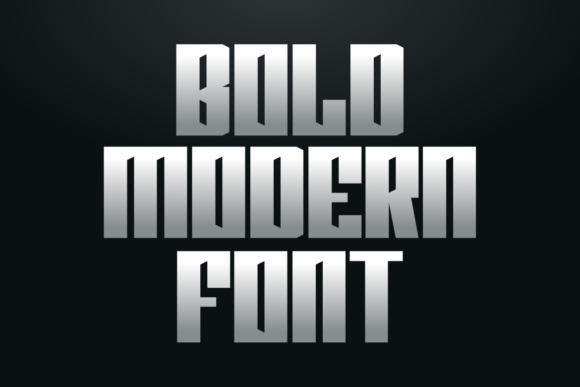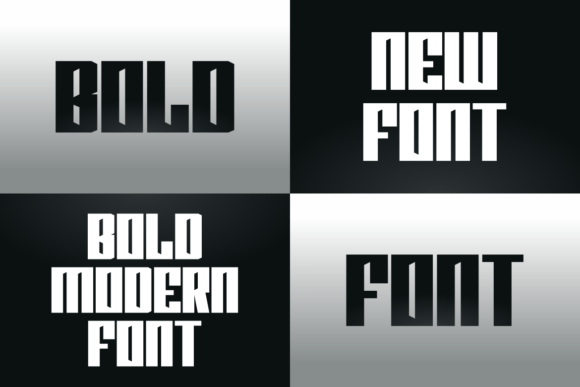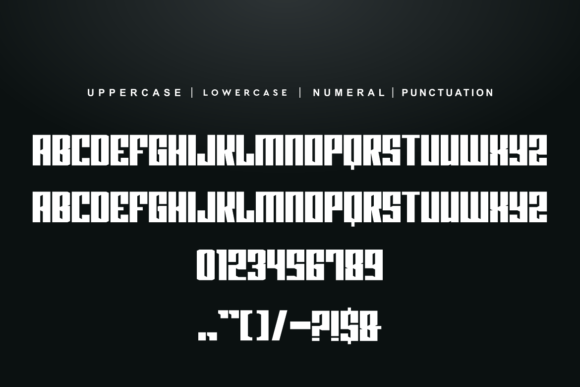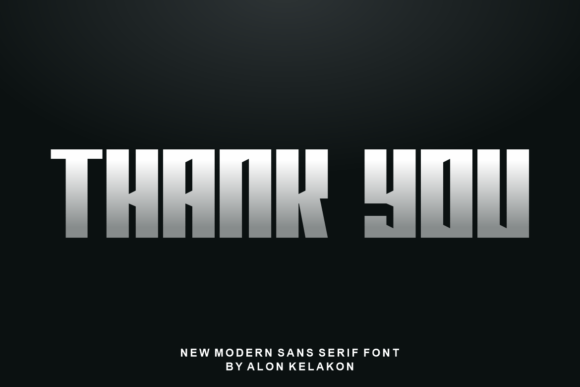
Unleash Your Creativity with Blues Rockers Font
Are you tired of using the same old fonts in your design projects? Look no further! Introducing Blues Rockers, a cool and bold sans serif font that’s sure to take your designs to the next level. With its unique and edgy style, Blues Rockers is the perfect addition to any project, from crafting and DIY to graphic design and digital art.
What Makes Blues Rockers Font So Special?
Blues Rockers font is a game-changer for designers and crafters alike. Its bold and sans serif design makes it perfect for creating eye-catching headlines, titles, and text that demands attention. The font’s clean and modern lines give it a fresh and contemporary feel that’s sure to appeal to anyone looking for a unique and stylish font.
Key Features of Blues Rockers Font
- Bold and Sans Serif Design: Blues Rockers font features a bold and sans serif design that’s perfect for creating eye-catching text.
- Clean and Modern Lines: The font’s clean and modern lines give it a fresh and contemporary feel that’s perfect for any design project.
- Unique and Edgy Style: Blues Rockers font has a unique and edgy style that’s sure to add a touch of personality to any design.
- Easy to Read: Despite its bold design, Blues Rockers font is easy to read, making it perfect for use in a variety of design projects.
How to Use Blues Rockers Font in Your Projects
Design Project Ideas
- Graphic Design Projects: Use Blues Rockers font to create eye-catching posters, flyers, and brochures.
- Crafting and DIY Projects: Add a touch of personality to your crafting and DIY projects, such as handmade cards and gift tags.
- Digital Art: Use Blues Rockers font to add text to your digital art, such as illustrations and graphics.
- Web Design: Use Blues Rockers font to create bold and eye-catching headlines and titles for your website.
Why Designers and Crafters Love Blues Rockers Font
Blues Rockers font has quickly become a favorite among designers and crafters, and for good reason. Here are just a few reasons why:
Reasons to Love Blues Rockers Font
- Unique and Stylish: Blues Rockers font is a unique and stylish addition to any design project.
- Versatile: Blues Rockers font can be used in a variety of design projects, from graphic design to digital art.
- High-Quality: The font is high-quality and comes with a range of features, including bold and clean lines.
In conclusion, Blues Rockers font is a cool and bold sans serif font that’s perfect for designers and crafters looking to add a touch of personality to their projects. With its unique and edgy style, clean and modern lines, and ease of use, Blues Rockers font is sure to become a favorite among designers and crafters. So why wait? Download Blues Rockers font today and see the difference it can make in your design projects!